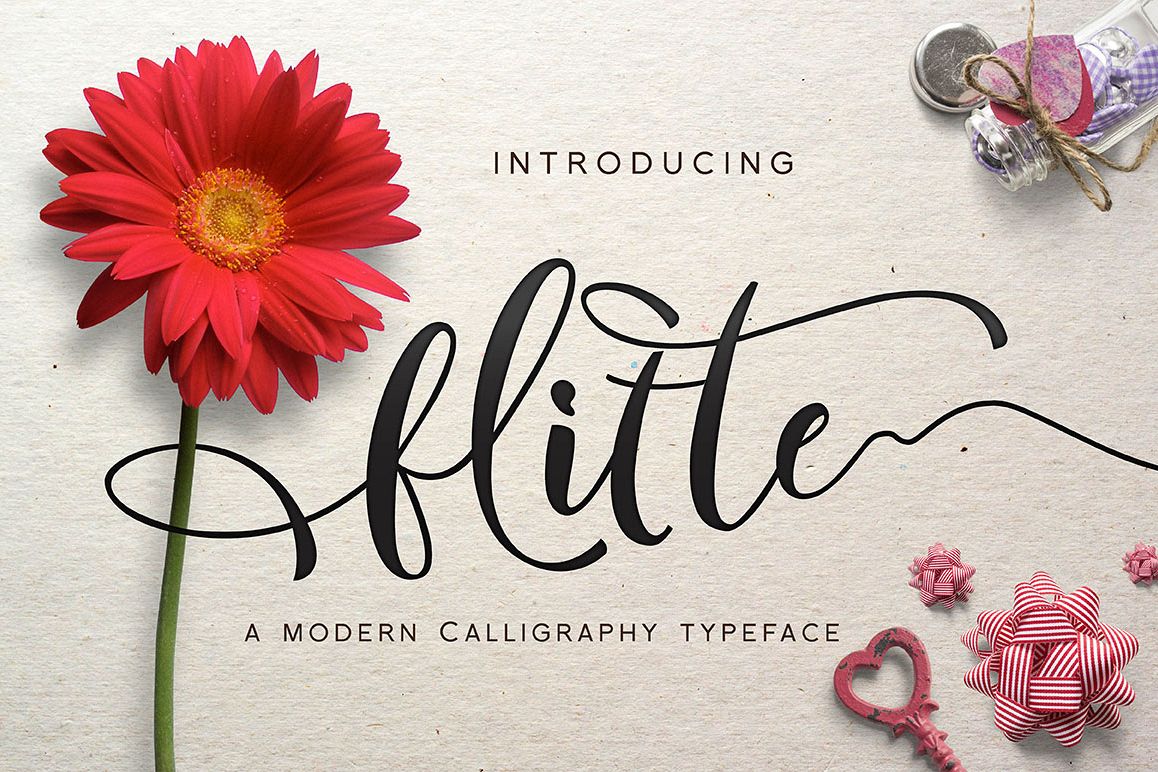
Flitte Script
Flitte.
Flitte Script is a beautiful Script, It suitable for wedding invitation, greeting cards, T-Shirt, Logo or any design that you create.comes with a complete set of standard characters, Alternates, stylistic Alternates, Punctuation & international glyphs
UPPERCASE
lowercase
numeral
punctuation
international glyphs
Ligatures
Alternates Glyphs
Stylistic Alternates